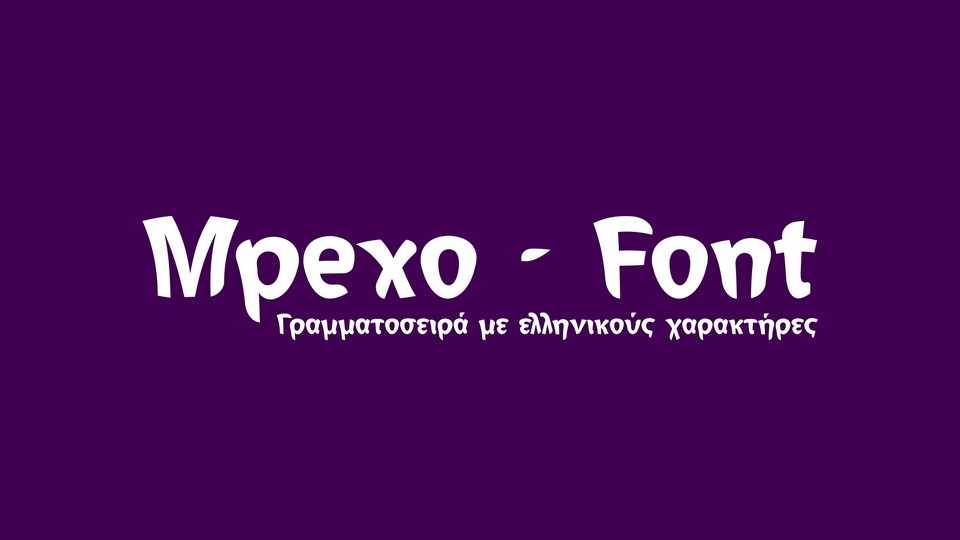
Download Mpexo font, a fun and friendly hand lettered Greek typeface. With its slightly irregular strokes and curves, Mpexo font has a characteristic cheerful and comical look.
Designer: Christos Lentzaris